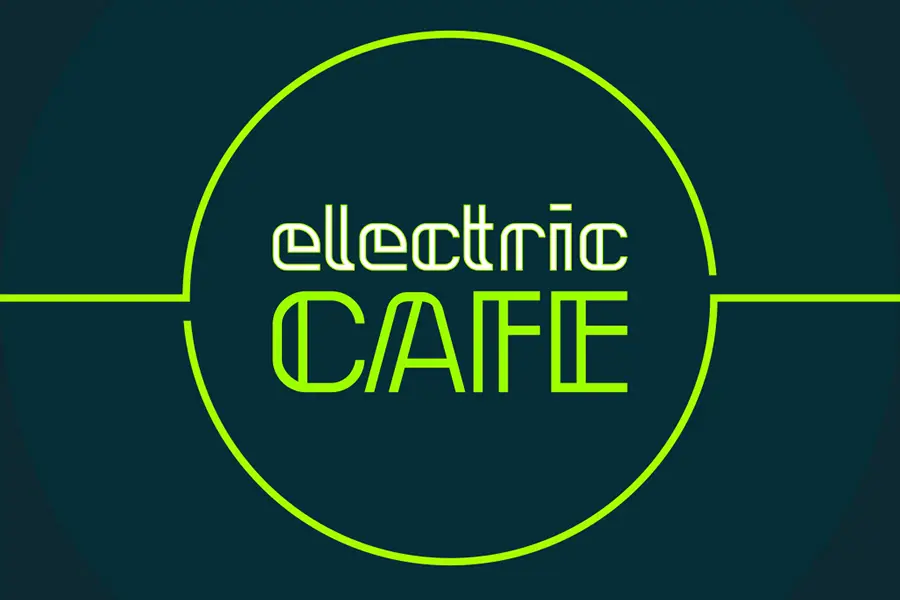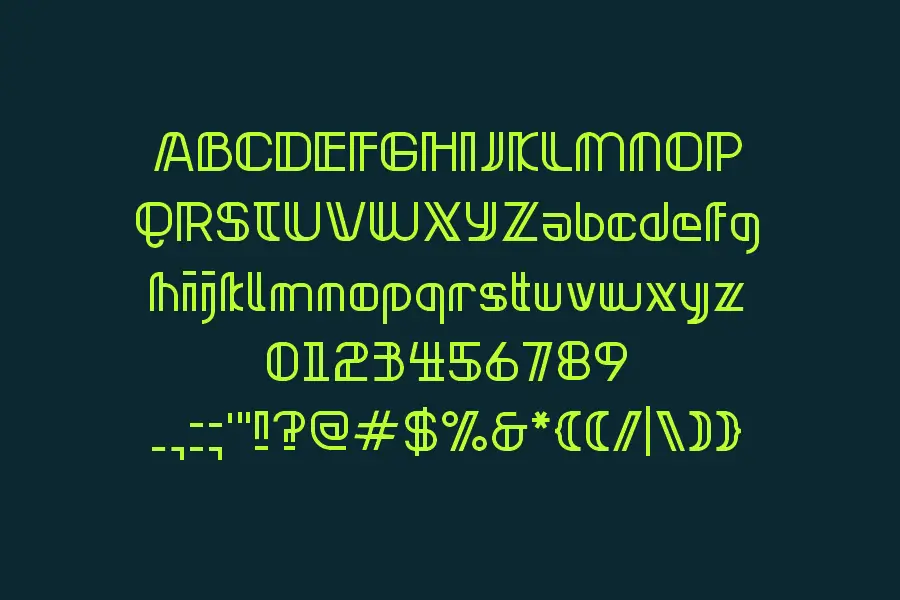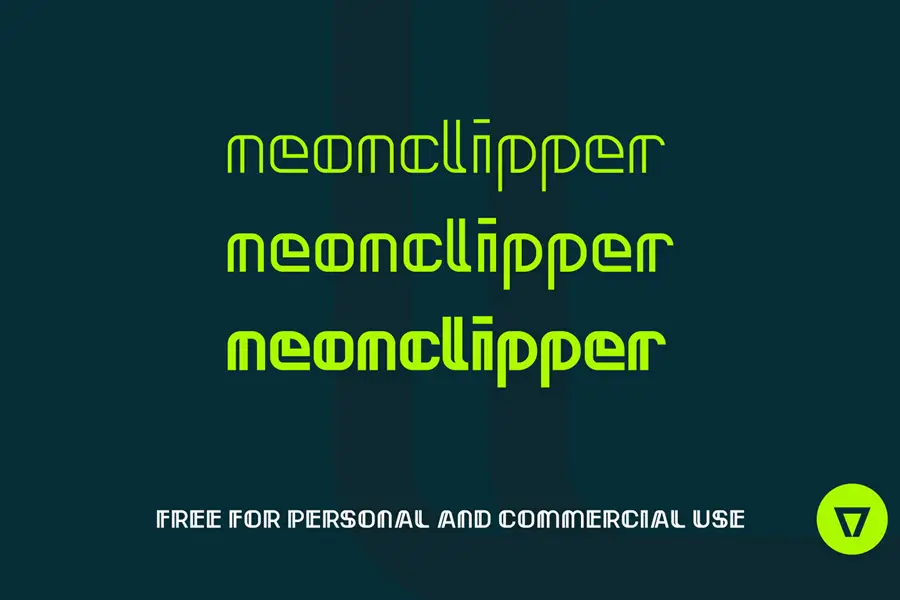
Neonclipper Font Family
The Neonclipper Font Family is a vibrant and modern typeface designed to add a touch of energy and style to your projects. With its unique neon-inspired design, this font family includes multiple weights and styles, making it versatile for various applications.
• Multiple font weights for flexibility
• Stylish neon-inspired design
• Perfect for web design and UI elements
• Great for print projects such as posters and flyers